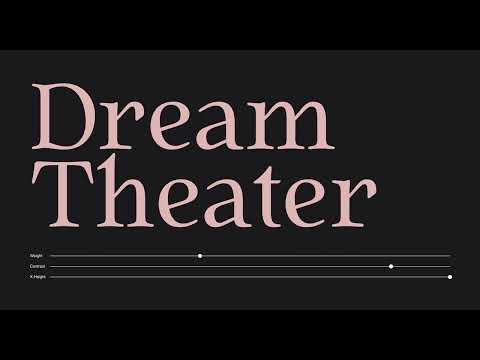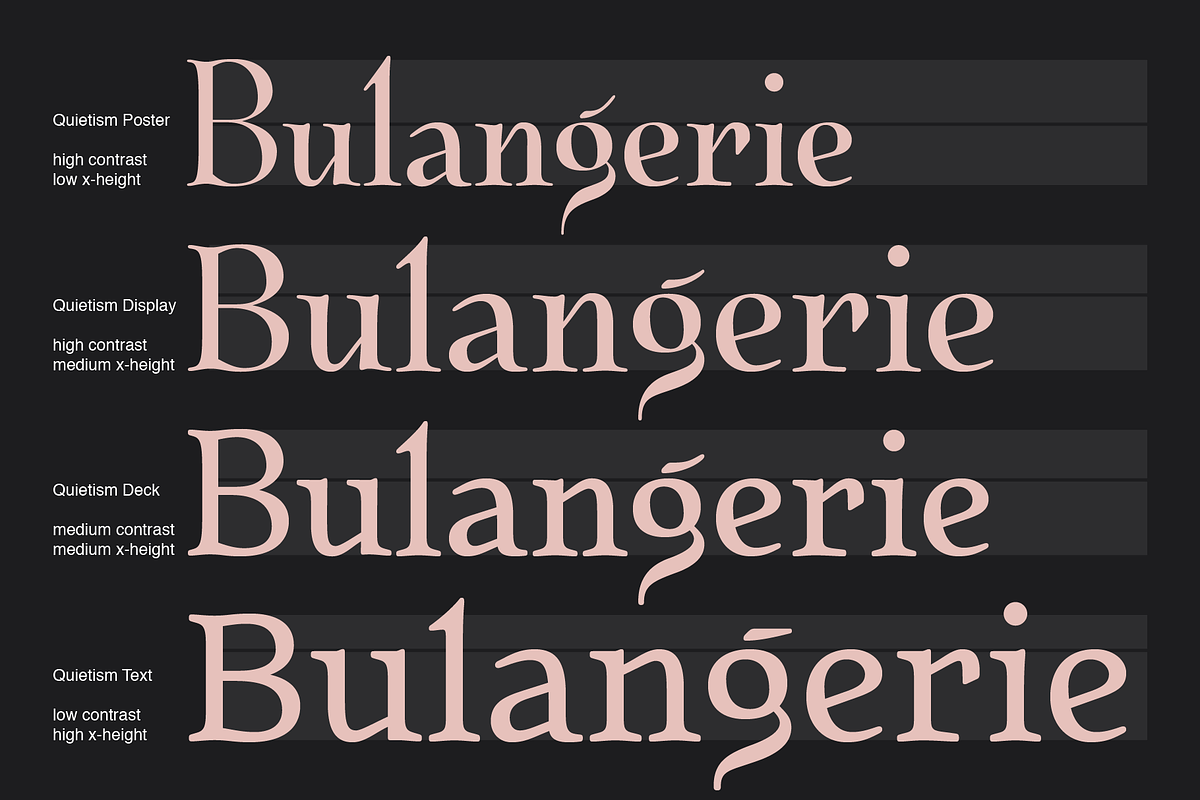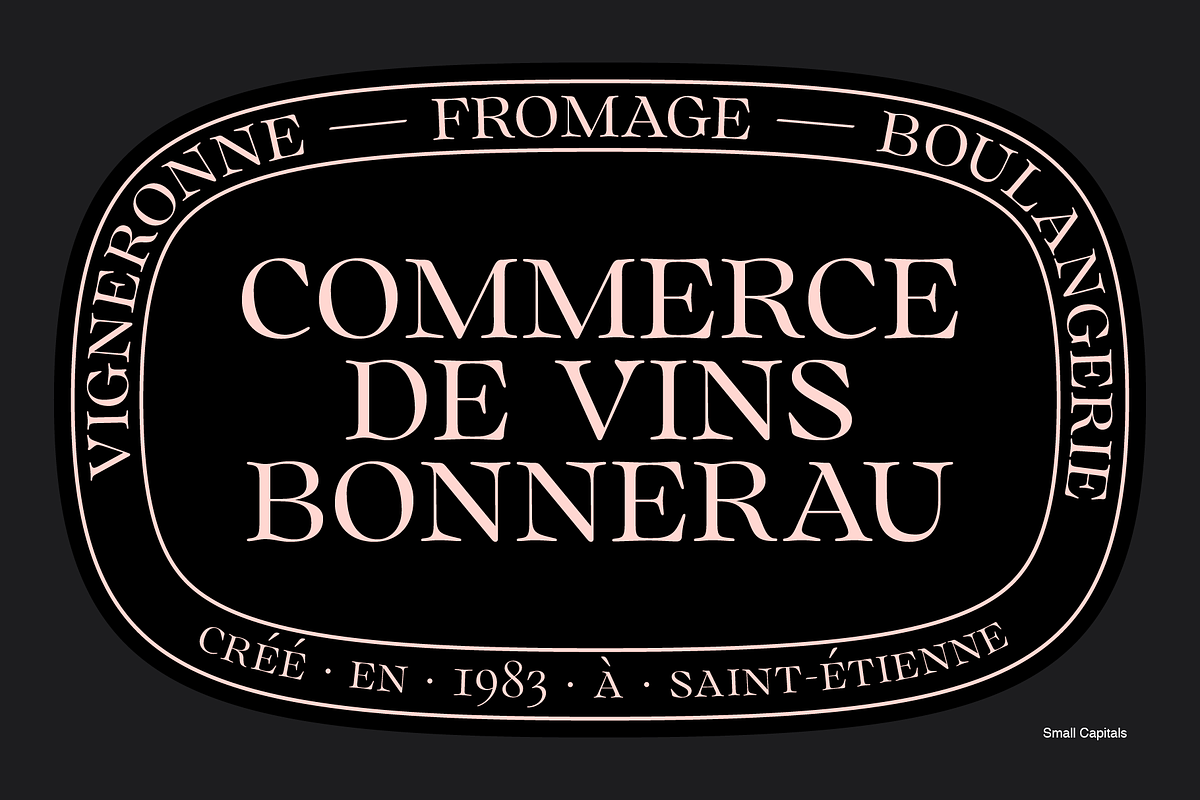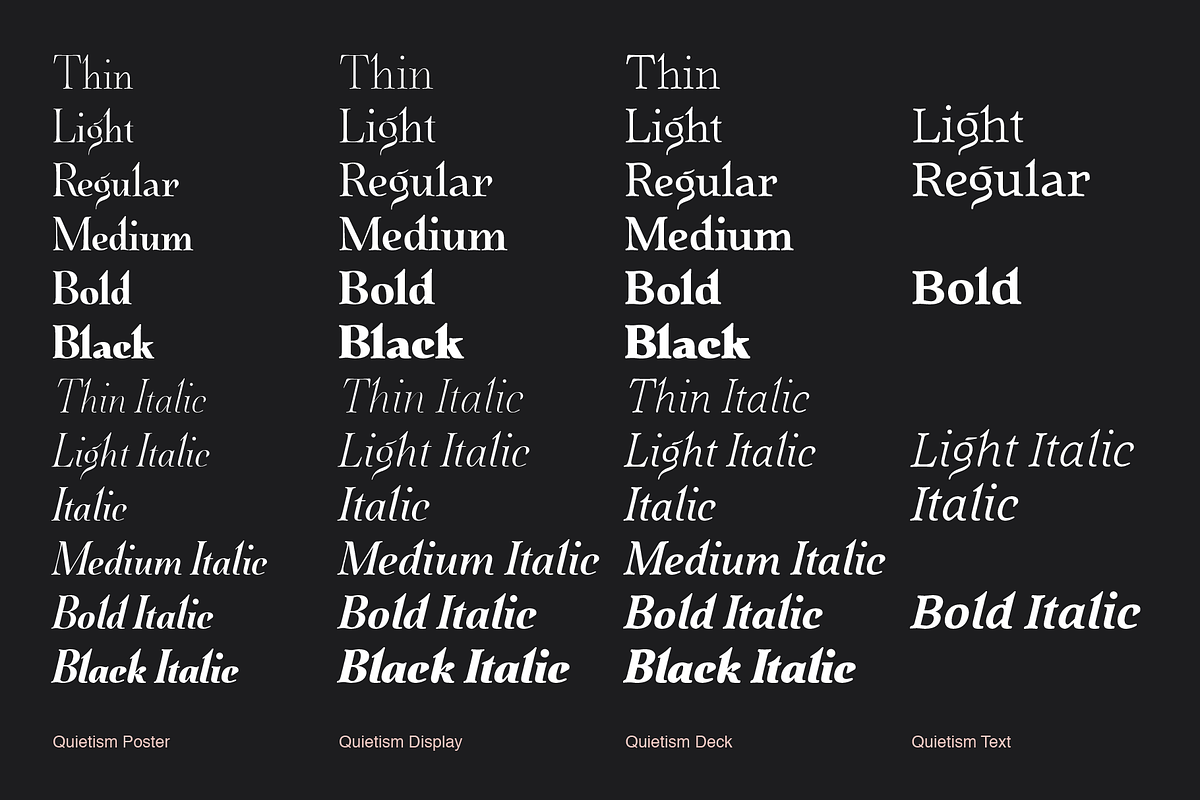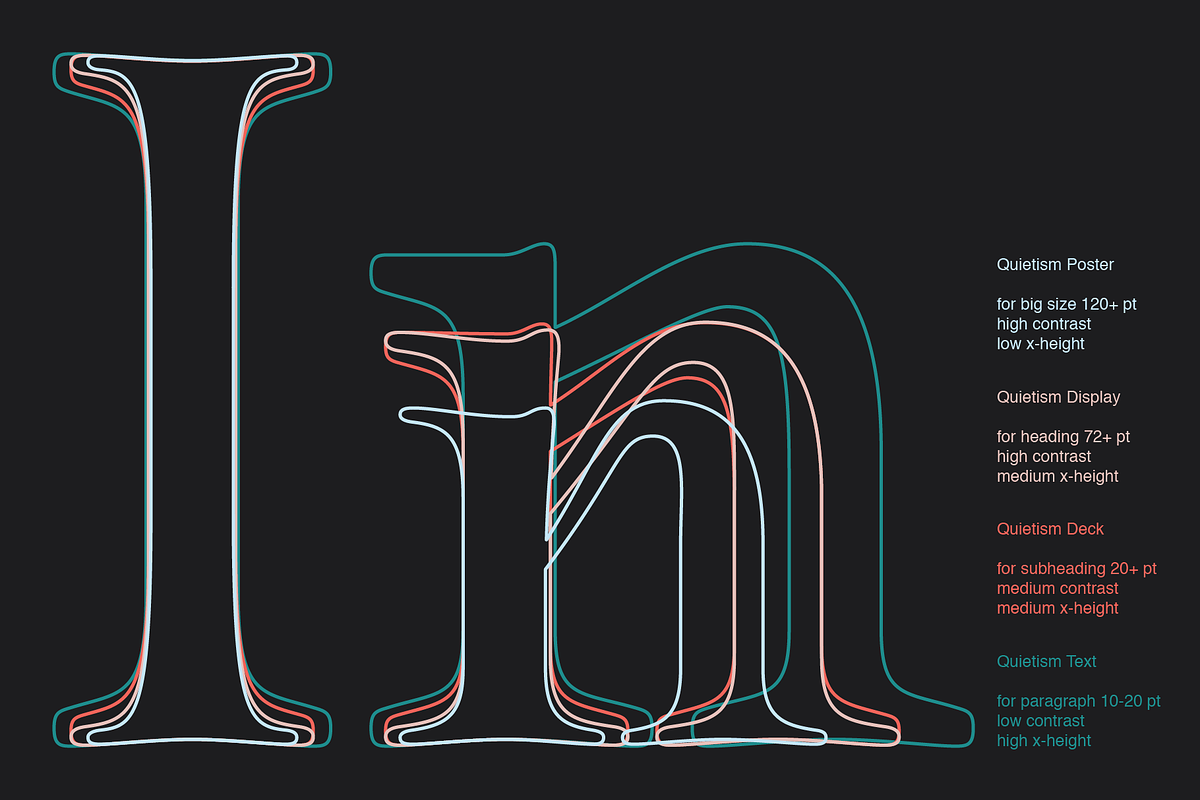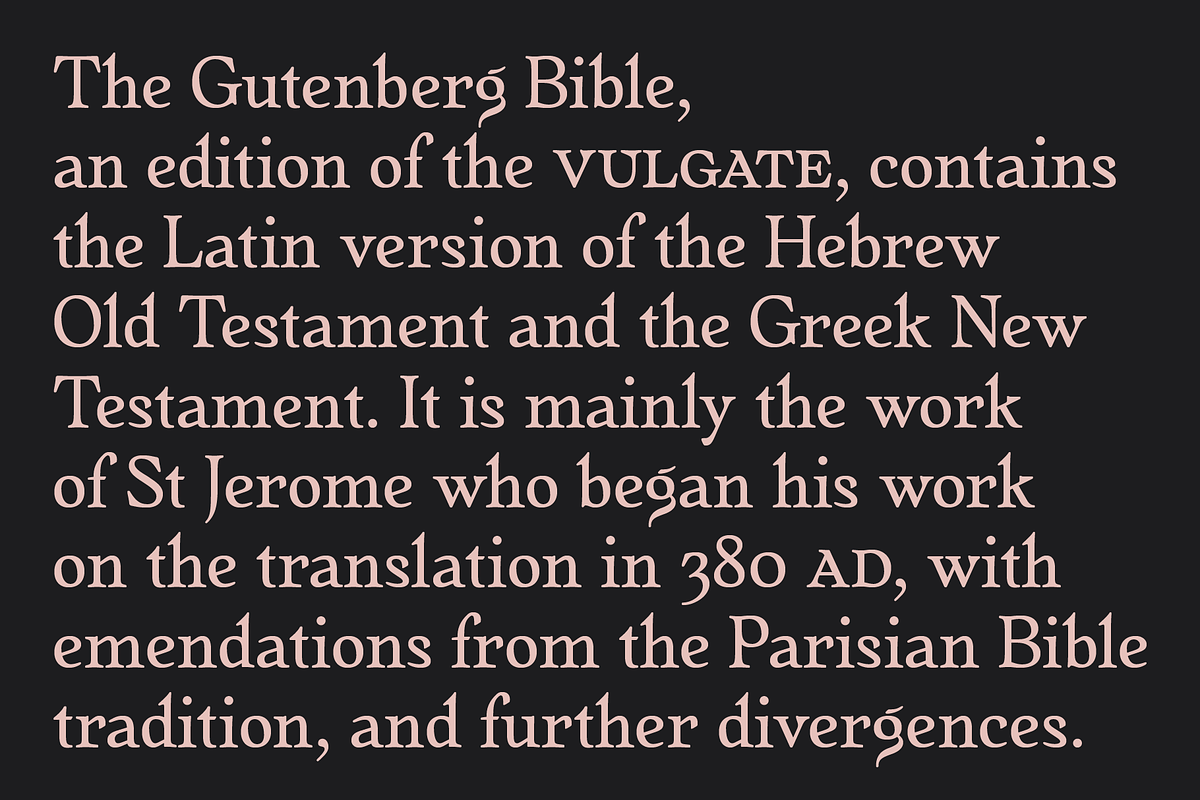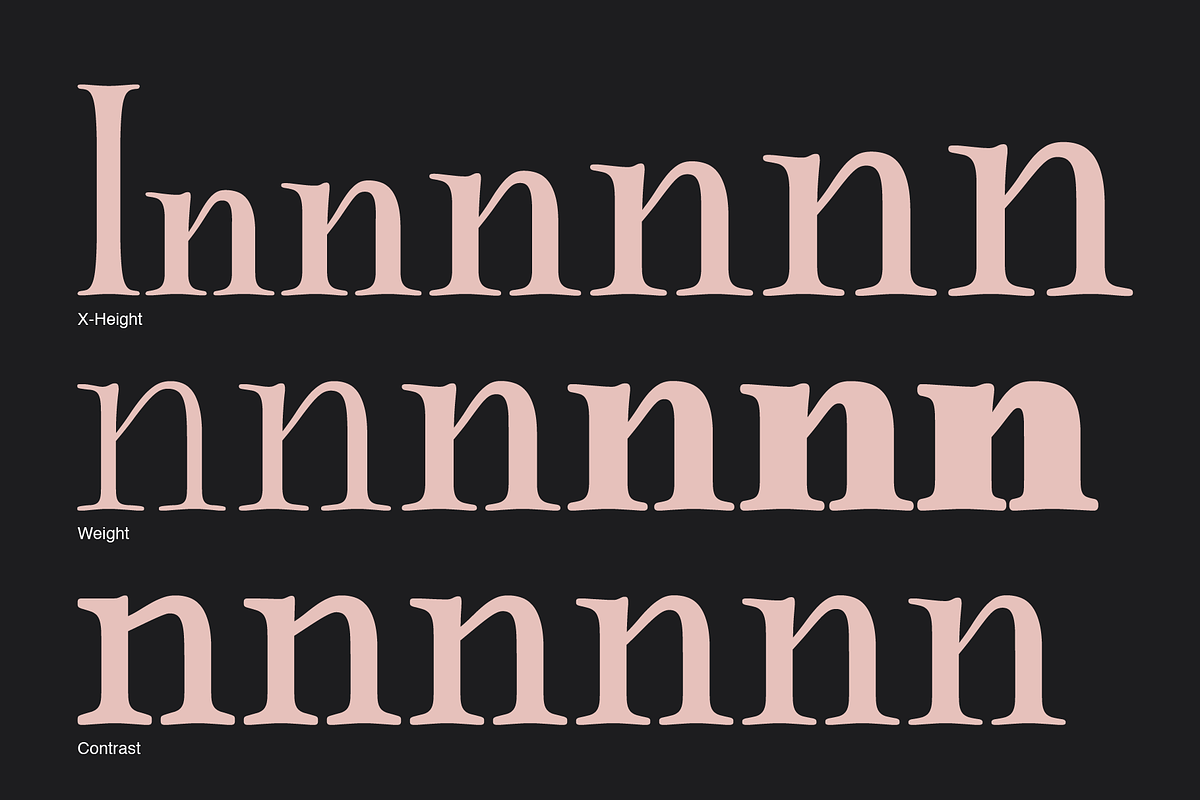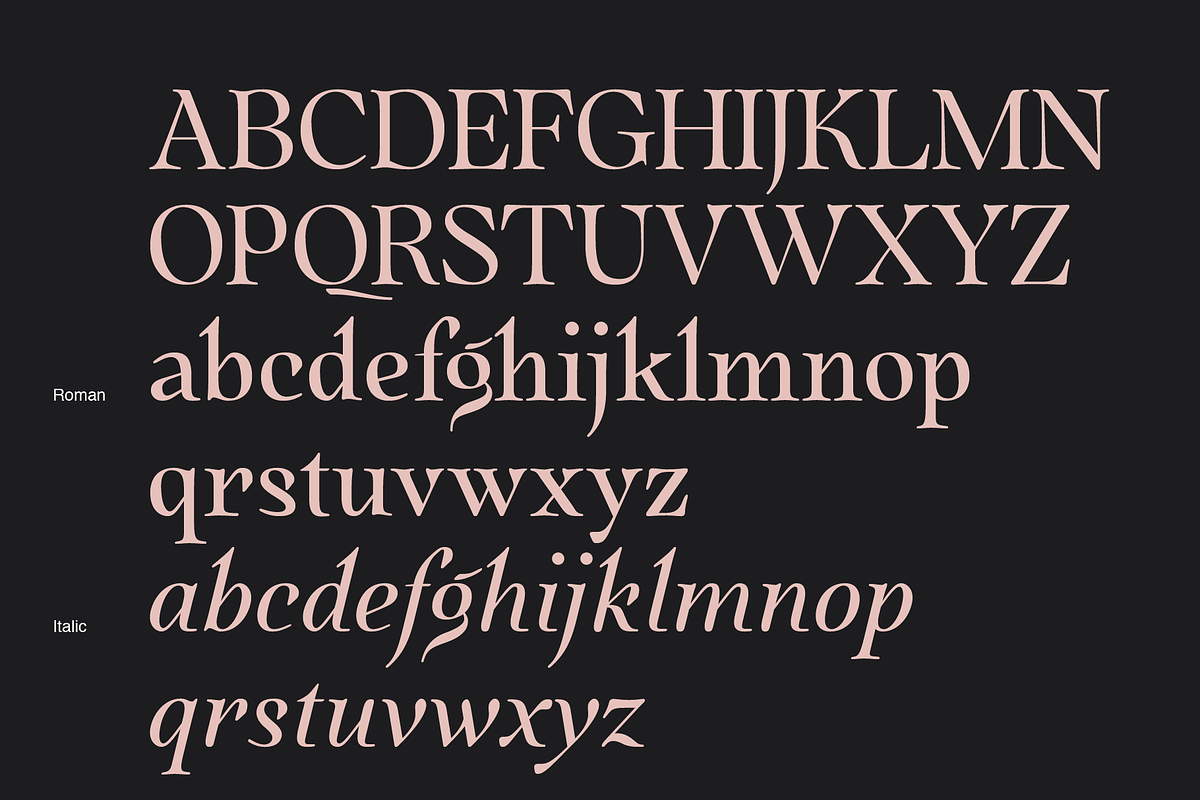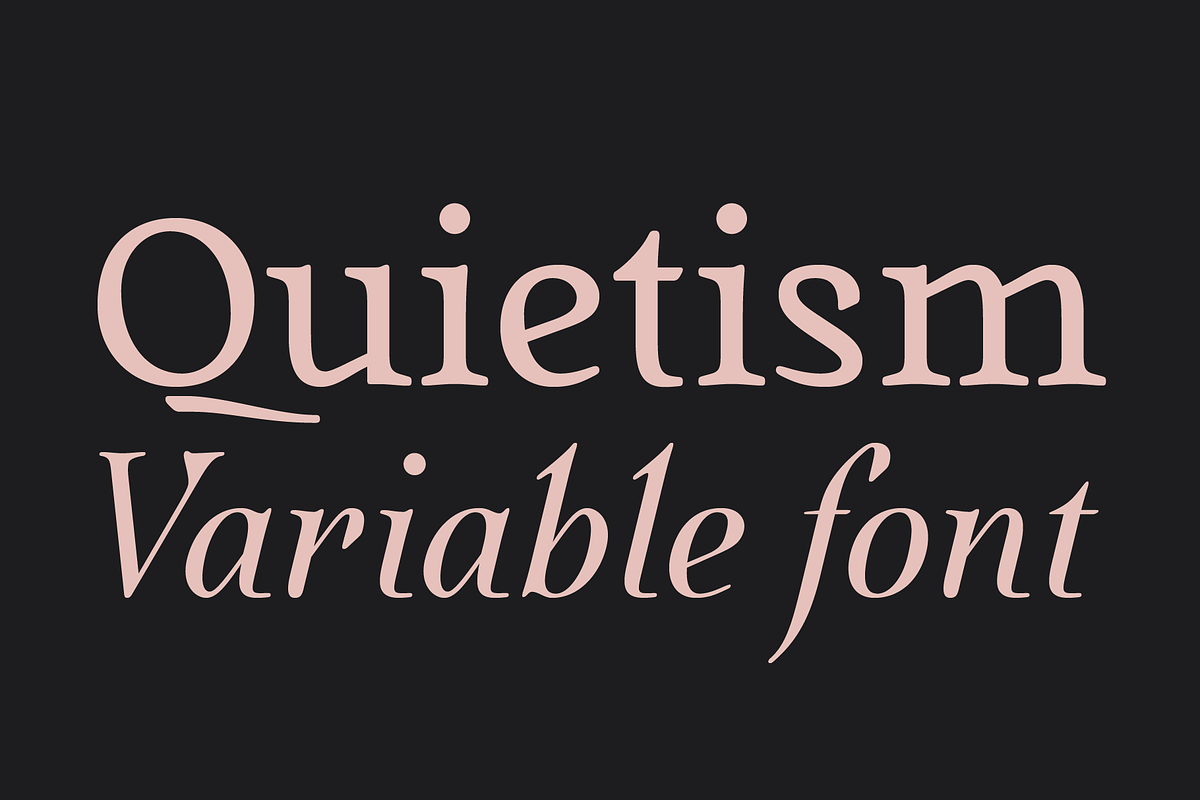
Quietism Variable font
Quietism Variable is a smooth contemplative Antiqua with aspiring to the sky ascenders, inspired by the Quietism philosophy. Clarity of the mind is achieved by bringing the body into a state of calm and contemplation, and this is reflected in the design – the quiet horizontal serifs (body) are opposed to the peaky soaring ascenders (mind). The design also features four optical size subfamilies with different x-height and contrast, oldstyle diagonal stress, oldstyle figures by default, smooth details and slightly dark texture.
Variable axes: Weight, Contrast, X-Height.
Scripts: Latin, Greek, Cyrillic.
Variable Font: Quietism Variable provides more options than static versions, presented by separated Roman (VFR) and Italic (VFI) files, and has three axes: Weight (Thin–Black), Contrast (Low-High), and X-Height (Low-High). Variable fonts includes thousands of styles that you can access using a sliders on graphic editor or via CSS on web browser. Mixing different axes gives you extra styles not represented by static fonts.
Optical Size: The typeface has 42 precomposed instances organized by 4 subfamilies: Text (low contrast, high x-height – for paragraph 10-20 pt), Deck (medium contrast, medium x-height – for subheading 20+ pt), Display (high contrast, medium x-height – for heading 72+ pt), Poster (high contrast, low x-height – for big size 120+ pt).
Small Caps: Lowercase letters and Oldstyle Figures are replaced with Small Capitals forms.
Capitals to Small Caps: Uppercase letters, all figures, and some punctuation are replaced with Small Capitals forms.
Case Sensitive Forms: ()[]{}‹›«»-–—•·#%‰@ and Arrows are centered on capitals. Oldstyle figures are replaced with Lining figures.
Oldstyle Figures: 0123456789 #%‰. Designed to work with lowercase letters. Used by default.
Lining Figures: 0123456789 #%‰. Figures are the same height as uppercase letters (cap height).
Proportional Figures: Lining, Oldstyle, Small Caps, Capitals to Small Caps.
Tabular Figures: Lining, Oldstyle, Small Caps, Capitals to Small Caps.
Ordinals: adehnorst.
Superscript, Subscript, Numerator, Denominator: 0123456789.
Fractions: ¼½¾⅐⅑⅒⅓⅔⅕⅖⅗⅘⅙⅚⅛⅜⅝⅞⅟ (precomposed). Any other fractions (even those typed through a slash) will also be displayed correctly, with the automatic replacement to Numerator + fraction + Denominator.
Slashed Zero: All 0 figures.
Contextual Alternates: Number sign character (#) before uppercase letters is replaced by its version centered on capitals. Hyphen character (-) between two uppercase letters is replaced by its version centered on capitals. First of two TT letters is replaced by its alternate form. Letters vwy before the letters fijmnprtuvwxy are replaced with an alternate shorter versions that fits better in the context.
Contextual Alternates (Greek): ΆΈΉΊΌΎΏ. Greek uppercase accented characters lose their tonos accent and retain only dieresis in All Caps and Small Caps modes. Turned on by default. If you need tonos accents in All Caps then turn off Contextual Alternates (calt) feature.
Stylistic Alternates: FTГТИЦЩцщ and their versions with diacritical marks.
Stylistic Set 01 “Arrows”: Left - Right - Up | Down | Left Right - Up Down | North West North East / South East South West
Stylistic Set 02 “Round-Square Cyrillic”: ДИЙЍЛФвгджзийѝклнптцчшщьъю characters are replaced with its Bulgarian or Russian forms.
Stylistic Set 03 “Cyrillic Tse Shcha short tails”: ЦЩцщ characters are replaced with its alternate form with short tail.
Stylistic Set 04 “Cyrillic I full serifs”: ИЙЍӢ characters are replaced with its alternate form with inner serifs.
Stylistic Set 05 “FT bent inward serif”: FTГ characters and their versions with diacritical marks are replaced with its alternate form with right head serif that bent inside.
Stylistic Set 06 “Small Caps centered on Capitals”: Small Caps are vertically centered on uppercase letters.
Standard Ligatures: fi fl fb ff fh fj fk ffb ffh ffi ffj ffk ffl.
Discretionary Ligatures: Th ct st.
Localized Forms: 52 character substitutions for Azeri, Bulgarian, Catalan, Dutch, German, Kazakh, Macedonian, Moldavian, Polish, Romanian, Serbian, Tatar, Turkish.
Glyph Composition/Decomposition (Diacritics): Full Latin and based Vietnamese set of diacritics (571 characters). Precomposed.